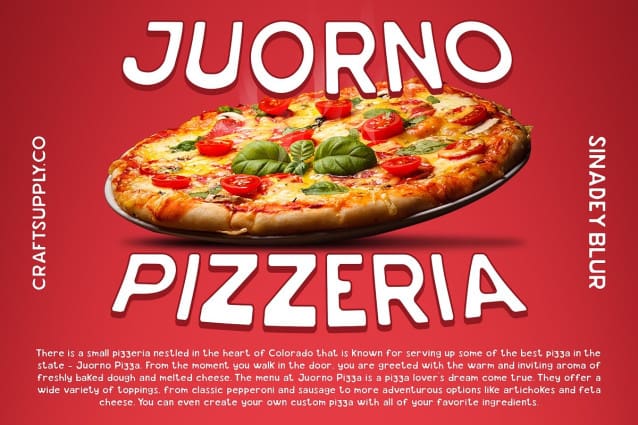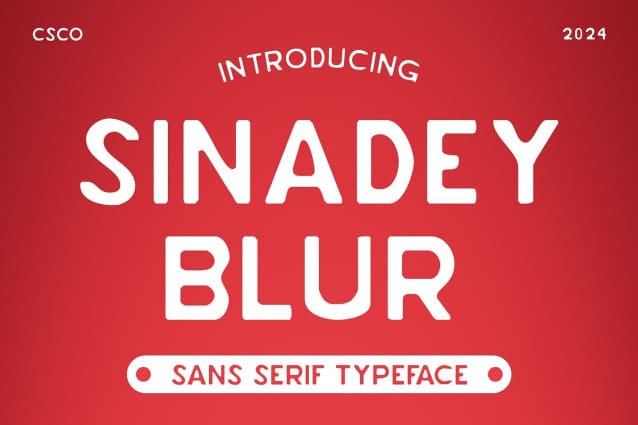
Sinadey Blur Font
Sinadey Blur Font is a sans serif font with a cute vibe and a blur effect, perfect for eye-catching displays. Its playful design and subtle blur create a charming and whimsical look, ideal for posters, branding, and other projects that require a touch of cuteness and creativity.
With its rounded forms and blurred details, Sinadey Blur offers a delightful take on sans serif fonts. The cute vibe and subtle blur effect create a smooth and balanced appearance, adding a touch of whimsy to any design project.
Whether you’re designing a playful advertisement or creating a fun logo, Sinadey Blur is sure to make an impression. Its cute design and blur effect make it perfect for displays that need a touch of charm and modern appeal.
Despite its distinctive appearance, Sinadey Blur is versatile and easy to use. The font works well in both large and small sizes, making it suitable for a variety of applications, from headlines and banners to body text and more. With its blend of cuteness and blur effect, Sinadey Blur adds a unique and whimsical touch to any design.